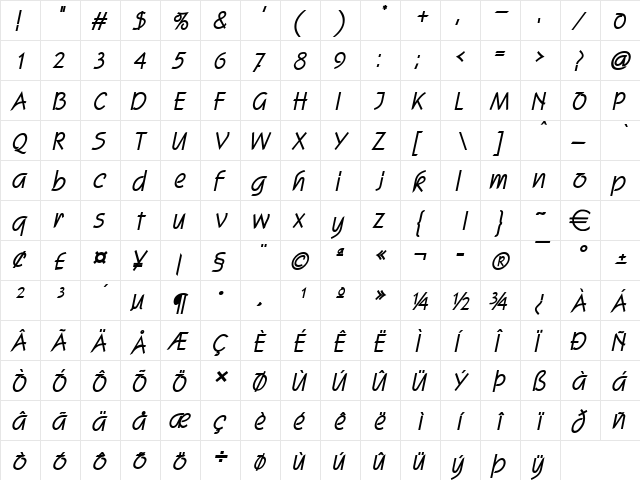
ScrollHeavy Italic
Design Context for ScrollHeavy Typeface
ScrollHeavy takes a measured approach to typography — its balanced proportions and neutral character make it a reliable workhorse for both digital and print work. The dynamic lean of this cut emphasises speed and emphasis in any layout.